Picture this: You’re staring at a blank canvas on a crisp winter morning, and suddenly inspiration strikes like the first snowflake of the season. You want to capture that magical, crystalline beauty of fresh powder, that cozy cabin-in-the-woods vibe, or maybe that playful snowball fight energy. But how do you translate the ethereal beauty of snow into typography?
Enter snow fonts – the secret weapon that can transform your ordinary designs into winter wonderlands that practically shimmer off the page.
Snow fonts aren’t just about slapping some white text on a blue background and calling it a day. Oh no, my friend. These carefully crafted typefaces capture the essence of winter in all its glory. From delicate, crystalline letters that look like they were carved from ice to bold, chunky fonts that feel as cozy as a warm fireplace, snow fonts bring that frosty magic to everything from holiday cards to ski resort branding.
Whether you’re designing wedding invitations for a winter ceremony, creating packaging for seasonal products, or building a brand that needs that cool, crisp winter aesthetic, the right snow font can make all the difference between a design that feels flat and one that truly captures the wonder of winter.
So grab your hot cocoa, settle in by the (metaphorical) fire, and let’s explore the most enchanting snow fonts that’ll make your designs absolutely snow-stopping in 2026!
The Most “Snow-Spectacular” Fonts of 2026
Let me be honest with you – not all snow fonts are created equal. Some look more like melted slush than pristine powder. That’s why I’ve curated this collection of the most breathtaking, winter-worthy fonts that actually capture the magic of snow. Here are the ones that’ll make your designs sparkle:
Under The Snow
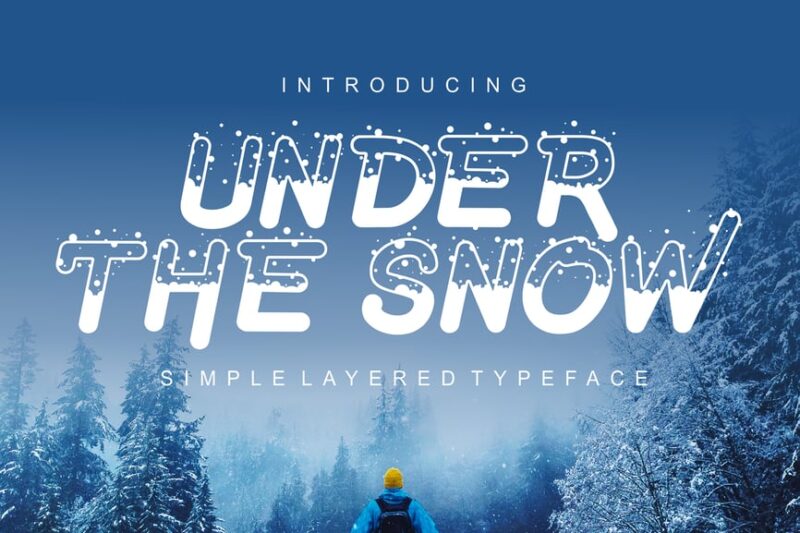
This decorative snow font captures the essence of a winter wonderland. With its icy and fresh design, Under The Snow is perfect for creating frosty, eye-catching designs that evoke the magic of snowfall.
Snowes
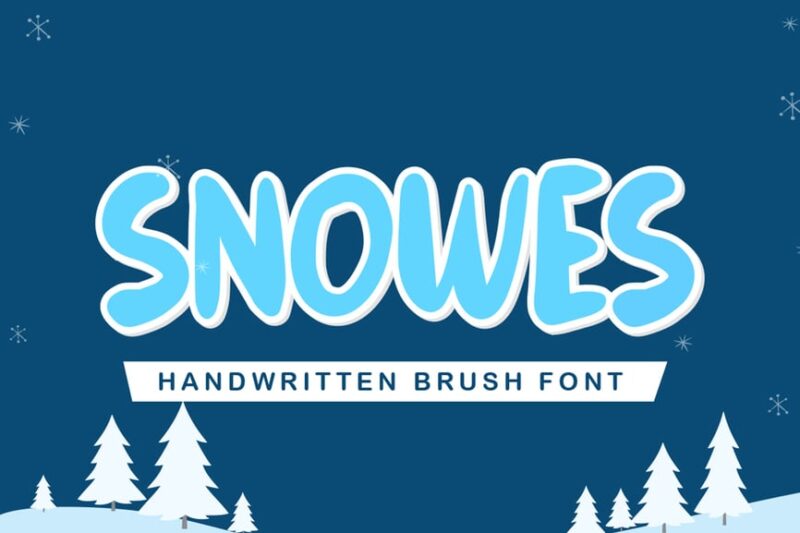
Snowes is a versatile sans-serif snow font with a decorative twist. Its wintery charm makes it ideal for Christmas and winter-themed projects, offering a perfect balance between readability and seasonal flair.
Monday Coldness
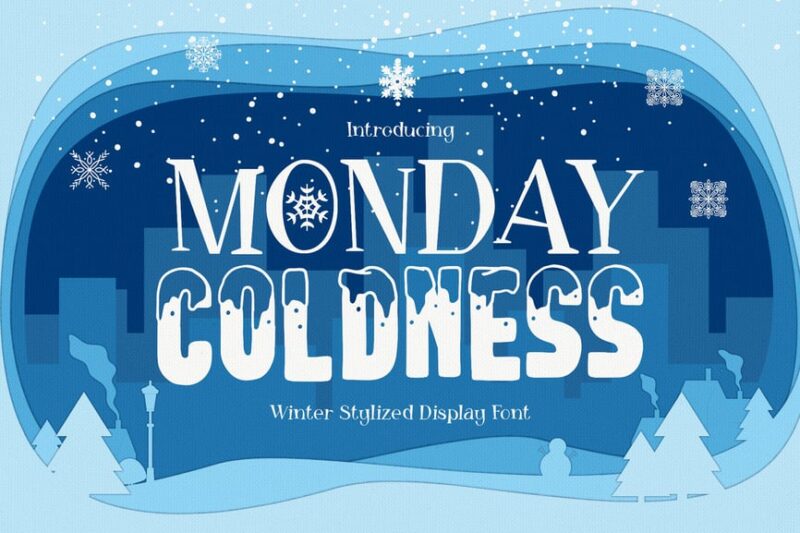
This decorative serif snow font embodies the chill of a winter morning. Monday Coldness features icy details that make it an excellent choice for Christmas designs or any project needing a touch of frosty elegance.
Winter is coming
Winter is coming is a decorative snow font that captures the anticipation of the season. Its bubble design incorporates subtle nods to snowflakes and icicles, making it perfect for creating atmospheric winter and Christmas visuals.
Winter Christmas Fonts
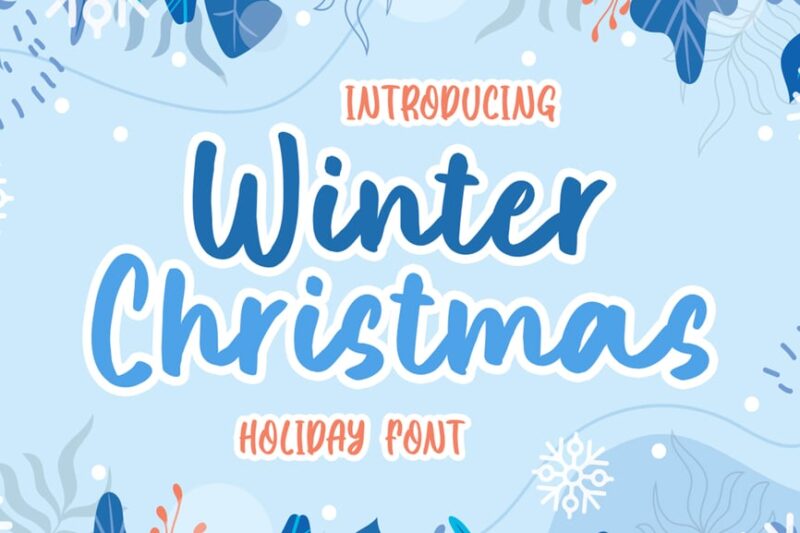
This collection of script and handwritten snow fonts offers versatility for winter-themed designs. From delicate snowflake-inspired letterforms to bold, frosty scripts, these fonts provide a range of options for Christmas and seasonal projects.
Snow Effect – Christmas Font
Snow Effect is a script and handwritten font that brings a flurry of creativity to your designs. This snow font features letter shapes that mimic the soft, flowing nature of falling snow, perfect for winter-themed invitations or holiday packaging.
Snow Funny – Playful Font
Snow Funny lives up to its name as a playful and merry decorative snow font. Its whimsical design captures the joy of a snow day, making it ideal for fun Christmas projects or children’s winter-themed illustrations.
Frostine Snow – Christmas Font
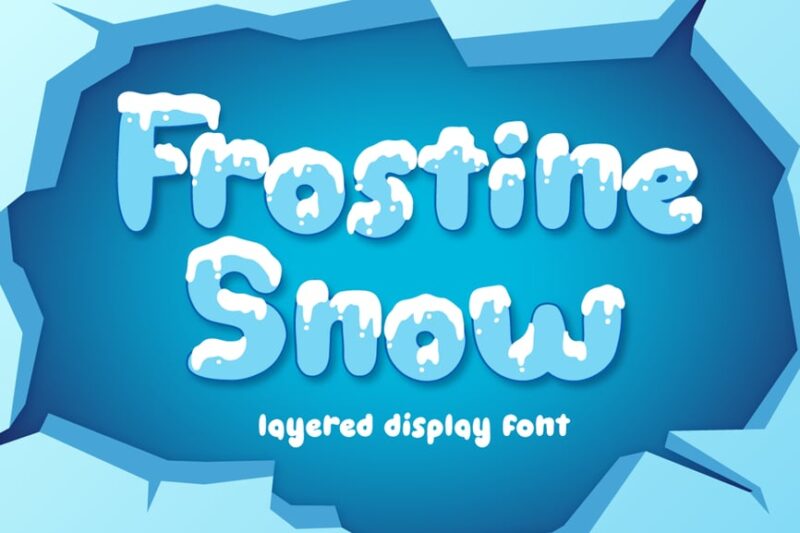
Frostine Snow is a versatile snow font that combines decorative, script, and handwritten styles. Its frosty appearance evokes images of ice cream and winter treats, making it perfect for holiday menus or winter festival branding.
Snow Color Font
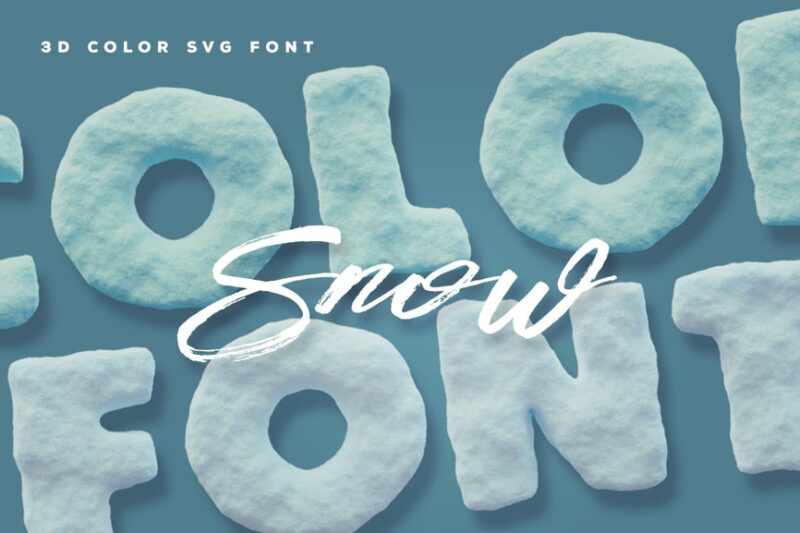
This decorative snow font brings a pop of color to your winter designs. Snow Color Font features icy textures and cool hues, allowing designers to create eye-catching headlines that capture the beauty of a snowy landscape.
Fronzy – Winter Rough Typeface
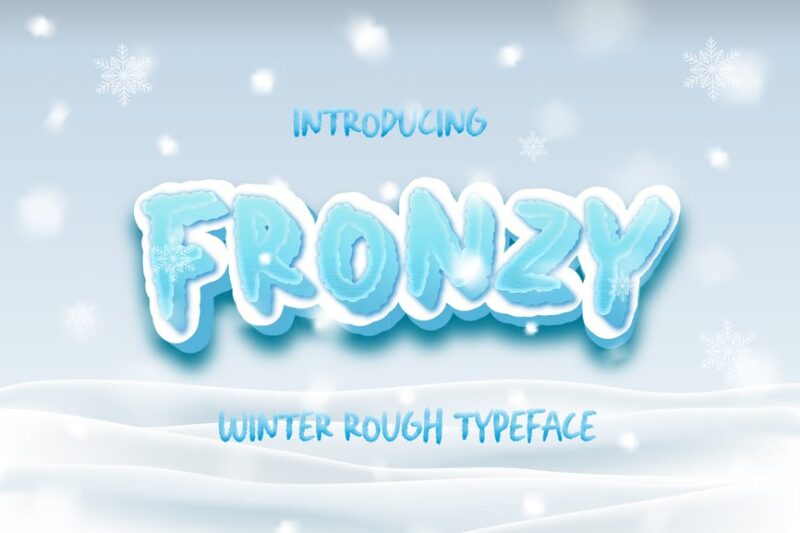
Fronzy is a rugged, decorative snow font that embodies the raw beauty of winter. Its rough edges and icy details make it an excellent choice for outdoor winter event posters or rustic holiday branding.
Icy Bubbles Display Winter Font
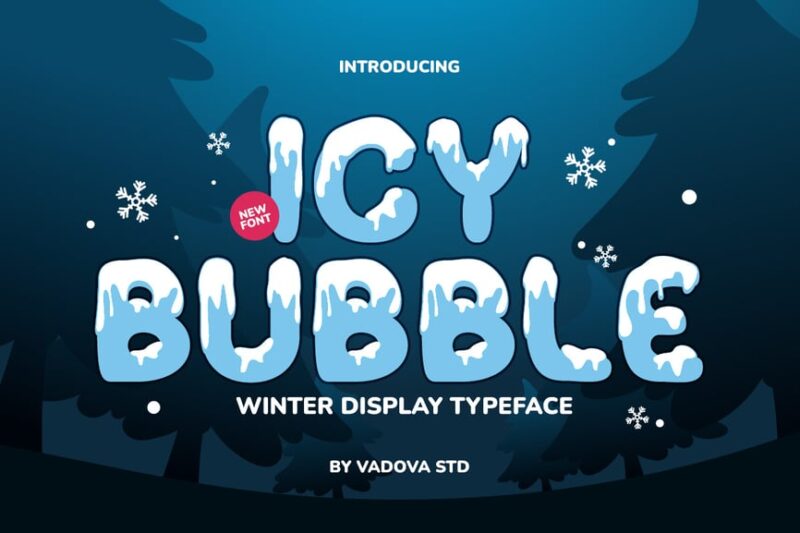
Icy Bubbles is a unique decorative snow font that mimics frozen bubbles. This dripping typeface is perfect for creating eye-catching winter headlines or Christmas designs that stand out from the crowd.
Cute Snowman
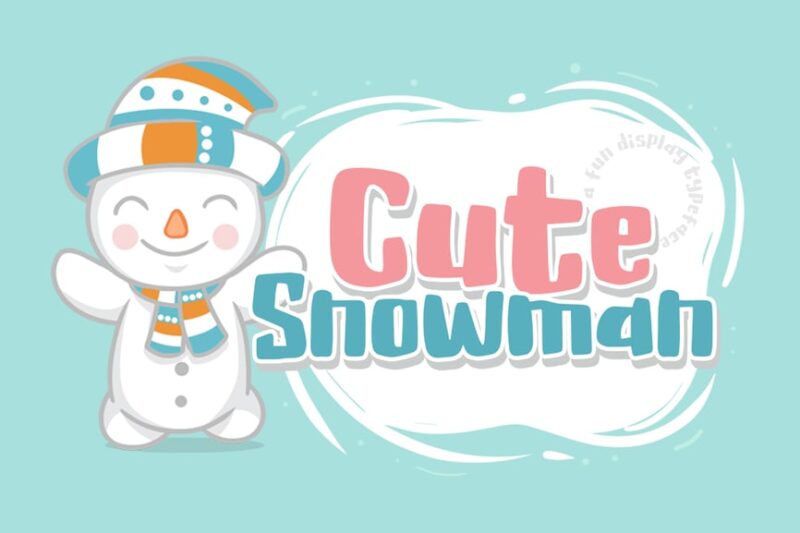
Cute Snowman is a charming sans-serif snow font with a whimsical twist. Its rounded shapes and playful design make it ideal for children’s winter books, holiday greeting cards, or fun seasonal advertising.
Frozenland – Christmas Font
Frozenland is a decorative snow font that captures the magic of a frozen wonderland. Its icy details and crystalline structure make it perfect for winter-themed event posters, holiday packaging, or frosty digital designs.
Snowy Season – Kids Font
Snowy Season is a playful sans-serif snow font designed with kids in mind. Its whimsical letterforms evoke the joy of playing in the snow, making it perfect for children’s winter wear branding or seasonal educational materials.
Snowing – Handwritten Font
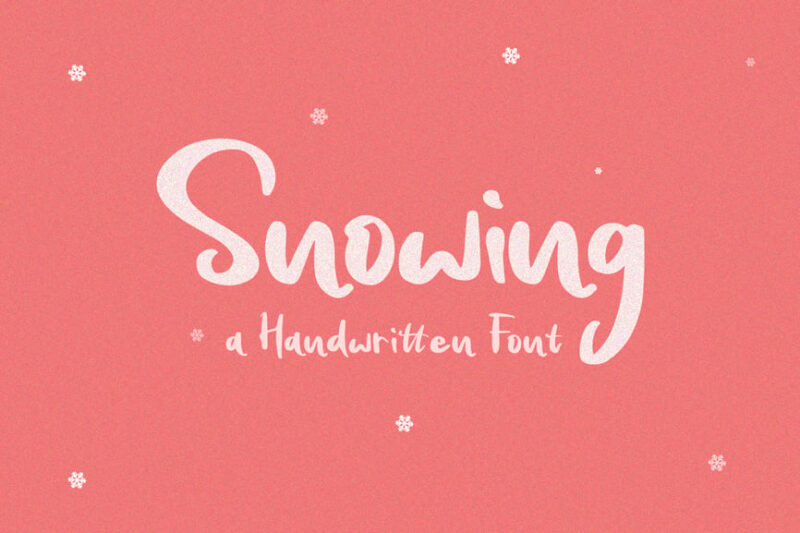
Snowing is a script and handwritten snow font that captures the gentle flow of falling snowflakes. Its delicate, cute appearance makes it ideal for creating elegant winter wedding invitations or soft, dreamy holiday designs.
Sunday Snow – Handwritten Font
Sunday Snow is a charming handwritten snow font perfect for crafting and display purposes. Its relaxed style evokes lazy winter Sundays, making it ideal for cozy seasonal branding or holiday social media content.
Winter Sunday a Playful Winter Font
Winter Sunday is a playful sans-serif snow font with decorative elements. Its cheerful design captures the spirit of winter holidays, making it perfect for creating fun seasonal greeting cards or festive packaging designs.
Estave – Winter Sans Serif Font
Estave is a sleek sans-serif snow font with subtle decorative touches. Its clean lines and icy details make it versatile for both modern winter branding and elegant holiday designs that require a touch of frosty sophistication.
Snow Deer
Snow Deer is a charming script and decorative snow font with a hand-drawn feel. Its whimsical design, featuring playful deer motifs, makes it perfect for creating cozy winter scenes or rustic holiday greeting cards.
Christmas – Snowy Glowy
Christmas – Snowy Glowy is a luminous sans-serif snow font that captures the magic of twinkling lights on snow. Its Christmas-y Style makes it ideal for creating eye-catching winter event posters or festive digital designs.
Snowy – Winter Floral Color Font
Snowy is a versatile color snow font that combines sans-serif, serif, and decorative styles with floral elements. Its unique design makes it perfect for creating stunning winter-themed logos, packaging, or seasonal social media content.
Icedry – A Winter Playful Display Font
Icedry is a playful decorative snow font that mimics the look of frozen letters. Its icy texture and whimsical design make it ideal for creating attention-grabbing headlines for winter sales or fun holiday event promotions.
Winter Kingdom
Winter Kingdom is a majestic sans-serif display snow font with decorative elements. Its regal design, featuring icy details, makes it perfect for creating elegant winter wonderland themes or sophisticated holiday branding.
Snow Away – Quirky Winter Font
Snow Away is a quirky decorative snow font that adds a touch of whimsy to winter designs. Its playful letterforms make it ideal for creating fun holiday vacation promotions or cheerful seasonal greeting cards.
Winter Snowy – Decorative Font
Winter Snowy is a charming decorative snow font that captures the essence of a snowy day. Its intricate icy details make it perfect for creating atmospheric winter scenes or festive holiday packaging designs.
Christmas Snow Hand Drawn Font
This hand-drawn snow font brings a personal touch to Christmas designs. Its organic, snowy texture makes it ideal for creating warm and inviting winter-themed greeting cards or cozy holiday social media content.
Winter Dairy – Christmas Font
Winter Dairy is a creamy, decorative snow font with a festive twist. Its smooth, icy appearance makes it perfect for designing winter-themed food packaging or creating appetizing holiday menu designs.
Snowy Night
Snowy Night is a magical script and decorative snow font that captures the serene beauty of a winter evening. Its elegant design makes it ideal for creating atmospheric winter wedding invitations or sophisticated holiday event branding.
Heavy Snow a Playful Winter Font
Heavy Snow is a bold, playful snow font with a touch of wavy fun. Its substantial letterforms, reminiscent of thick snowfall, make it perfect for creating impactful winter sale banners or eye-catching holiday advertisements.
Snow White Font
Snow White is a clean, crisp sans-serif snow font that embodies the purity of fresh snow. Its minimalist design makes it versatile for various winter-themed projects, from modern holiday branding to sleek seasonal packaging designs.
Southea – Winter Font
Southea is a graceful script snow font with a wintery touch. Its flowing lines and subtle icy details make it perfect for creating elegant winter wedding stationery or sophisticated holiday greeting cards.
Christmas Nordic Font
Christmas Nordic is a decorative serif snow font with a Scandinavian flair. Its unique design, featuring subtle snowy textures, makes it ideal for creating authentic winter-themed logos or rustic holiday packaging designs.
Magical Snow
Magical Snow is an enchanting script snow font perfect for display and crafting projects. Its whimsical design captures the wonder of snowfall, making it ideal for creating dreamy winter wonderland themes or magical holiday illustrations.
Snowmi – Christmas Display Font
Snowmi is a charming decorative snow font with a festive twist. Its playful design, featuring subtle snowflake elements, makes it perfect for creating eye-catching Christmas headlines or fun winter-themed social media graphics.
Frostbite
Frostbite is a cool, decorative snow font that captures the crisp chill of winter. Its icy, frozen, sparkly appearance makes it ideal for creating atmospheric winter event posters or frosty beverage packaging designs.
Deer Snow
Deer Snow is a whimsical decorative snow font featuring charming deer motifs. This unique typeface is perfect for creating cozy winter scenes, rustic holiday greeting cards, or playful seasonal branding with a woodland touch.
What Makes Snow Fonts Feel So Magical?
Ever wondered why certain fonts instantly transport you to a winter wonderland while others just fall flat? Snow fonts get their enchanting personality from several key design elements that work together to create that perfect frosty atmosphere.
Crystalline Structure and Sharp Edges
The best snow fonts often feature letterforms that mimic the geometric patterns found in actual snowflakes and ice crystals. You’ll notice sharp, angular edges that catch the light just like real ice, creating visual interest and that unmistakable winter sparkle.
These fonts often incorporate pointed serifs or geometric shapes that reference the hexagonal structure of snowflakes. The precision of these angles gives the typography a clean, crisp feeling – much like freshly fallen snow.
Delicate Hairlines and Frost-Like Details
Many snow fonts feature ultra-thin strokes or hairline details that evoke the delicate nature of frost patterns on windows. These subtle elements create a sense of fragility and beauty that perfectly captures the ephemeral quality of snow.
Some fonts go even further, incorporating actual snowflake motifs or crystalline patterns within the letterforms themselves, creating a truly immersive winter experience.
Texture and Depth Effects
The most effective snow fonts often include built-in texture effects that simulate the three-dimensional quality of snow and ice. This might include subtle shadows, highlights, or even transparency effects that make letters appear to glow like moonlight on fresh powder.
These textural elements help the typography feel substantial and real, rather than flat and two-dimensional, creating that magical depth that draws viewers into your winter-themed designs.
Where Can You Use Snow Fonts?
Now that we understand what makes snow fonts so captivating, let’s explore where these frosty typefaces can work their magic in your designs.
Holiday and Seasonal Branding
Snow fonts are naturals for holiday marketing campaigns, Christmas cards, and seasonal promotions. They instantly communicate winter festivities and create that warm, nostalgic feeling we associate with the holiday season.
Think beyond just Christmas though – these fonts work beautifully for New Year’s celebrations, winter sales events, or any brand that wants to capture that cozy, seasonal spirit.
Winter Sports and Outdoor Recreation
Ski resorts, snowboard brands, ice skating rinks, and winter sports equipment companies can leverage snow fonts to instantly communicate their winter focus. These fonts help establish credibility in the winter sports world while creating excitement around cold-weather activities.
Wedding and Event Design
Winter weddings are increasingly popular, and snow fonts provide the perfect typographic foundation for invitations, programs, and signage. They create an elegant, sophisticated atmosphere while celebrating the unique beauty of winter ceremonies.
Snow fonts also work beautifully for winter-themed parties, corporate holiday events, or any celebration that wants to embrace the magic of the season.
Product Packaging and Seasonal Marketing
From winter skincare lines to holiday treats, snow fonts help products stand out on shelves during the competitive holiday season. They create visual interest while clearly communicating the seasonal nature of the product.
Digital Design and Social Media
Snow fonts grab attention in social media posts, website headers, and digital advertising. Their unique aesthetic helps brands cut through the noise of busy feeds while creating shareable, memorable content.
Where to Avoid Snow Fonts
While snow fonts are fantastic for many applications, there are definitely contexts where they might not be the best choice.
Year-Round Corporate Branding
Unless your business is specifically winter-focused, using snow fonts for your primary brand identity can feel limiting. They’re strongly associated with specific seasons and occasions, which might not serve a year-round business well.
Serious or Formal Communications
Snow fonts tend to feel playful and decorative, which might not be appropriate for legal documents, medical communications, or other serious contexts where clarity and authority are paramount.
Small Text Applications
Many snow fonts are designed to be attention-grabbing display typefaces, which means they can become illegible at smaller sizes. Stick to headlines, titles, and other large text applications where their decorative elements can shine.
Professional or Technical Content
For industries like finance, technology, or healthcare, snow fonts might undermine the professional credibility you’re trying to establish. Save them for marketing materials and seasonal campaigns rather than core business communications.
How to Pick the Perfect Snow Font
Choosing the right snow font for your project requires careful consideration of several factors. Here’s how to make the perfect selection:
Consider Your Project’s Personality
Are you going for elegant and sophisticated, like a luxury winter resort? Or fun and playful, like a family ski trip? Match your font choice to the overall mood you want to create. Delicate, script-style snow fonts work beautifully for upscale applications, while bold, chunky fonts are perfect for more casual, energetic projects.
Think About Your Audience
Consider who will be viewing your design. Older, more traditional audiences might prefer classic, elegant snow fonts with subtle winter references. Younger demographics might respond better to bold, trendy fonts with obvious snow and ice themes.
Evaluate Readability Needs
How much text will you be setting in your snow font? If it’s just a headline or logo, you have more freedom to choose decorative options. But if you need to set longer passages, prioritize legibility over pure decorative appeal.
Consider Pairing Options
Snow fonts often work best when paired with simpler, more neutral typefaces for body text. Look for fonts that complement rather than compete with your chosen snow font, creating a harmonious typographic hierarchy.
Fantastic Snow Font Alternatives
Sometimes you want that winter feel without going full-on snow theme. Here are some alternatives that capture winter’s essence in more subtle ways:
Minimalist Sans Serifs
Clean, geometric sans serifs can evoke the pristine, uncluttered feeling of fresh snow without being too literal. Think of fonts with cool, crisp letterforms that feel refreshing and modern.
Elegant Script Fonts
Flowing script fonts can capture the organic, natural patterns found in frost and ice formations. Look for scripts with delicate flourishes that reference crystalline structures.
Classic Serif Fonts with Winter Personality
Traditional serif fonts with sharp, clean lines can evoke the precision and beauty of ice formations while maintaining readability and sophistication.
Common Snow Font Questions
Let’s address some frequently asked questions about snow fonts:
What’s the difference between snow fonts and winter fonts?
Snow fonts specifically reference snow, ice, and crystalline structures in their design. Winter fonts are broader category that might include any typeface that evokes cold weather, including fonts that reference bare trees, winter sports, or general seasonal themes without specifically looking like snow.
Are snow fonts appropriate for professional use?
It depends on the context. For businesses with winter-related services or seasonal marketing campaigns, absolutely. For year-round corporate communications, they might be too themed. Consider your audience and application carefully.
Can I use snow fonts for summer projects?
While unconventional, snow fonts can work for summer projects that want to evoke coolness and refreshment – think ice cream brands, air conditioning companies, or “cool summer escape” travel campaigns.
How do I make snow fonts readable?
Choose fonts with good contrast between thick and thin strokes, avoid overly decorative options for body text, ensure adequate spacing between letters, and test readability at your intended size before finalizing your design.
Do snow fonts work in digital applications?
Many snow fonts work beautifully in digital designs, but pay attention to how decorative elements render at different screen sizes and resolutions. Some fonts designed for print might lose detail when displayed digitally.
Snow fonts offer an incredible opportunity to bring the magic and wonder of winter into your designs. When chosen thoughtfully and used appropriately, they can transform ordinary projects into extraordinary winter experiences that truly capture the beauty of the season.
Whether you’re designing holiday materials, winter sports branding, or seasonal marketing campaigns, the perfect snow font can help your message sparkle and shine. Remember to consider your audience, application, and overall design goals when making your selection.
So go ahead – let it snow, let it snow all over your next design project. With the right snow font, you’ll create something that’s truly snow joke… absolutely magical!